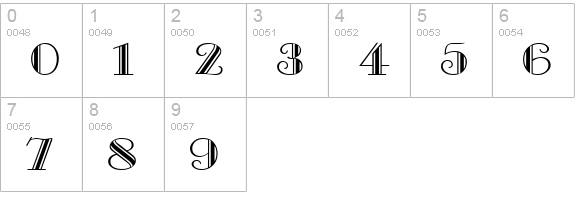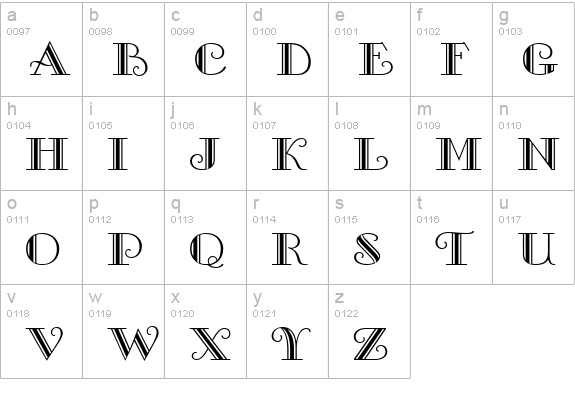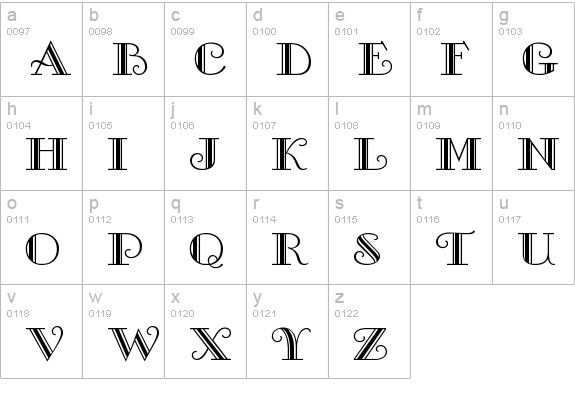
Gallia Regular is the standard, neutral variant in the Gallia typeface family \xE2\x80\x94 well suited to general body text, paragraphs, and standard typographic work.
Gallia Regular font is a versatile and elegant typeface that exudes timeless beauty. Its sleek lines and balanced proportions make it perfect for a wide range of design projects, including branding, advertising, and editorial layouts. With its clean and legible letterforms, Gallia Regular adds a touch of sophistication and professionalism to any text. This font features a harmonious blend of classic and contemporary elements, making it suitable for both traditional and modern design aesthetics. Its graceful curves and refined details give it a unique charm that captures attention without overpowering the content. One of the best things about Gallia Regular font is that it is completely free. As a designer, you can freely download this font at FontsMarket.com, saving you time and money. This means you can use Gallia Regular in your projects without worrying about any licensing restrictions or additional costs. Whether you're working on a logo, a website, or a print layout, Gallia Regular font will elevate your design to new heights. Its versatility and timeless appeal make it a valuable addition to any designer's toolkit. So why wait? Visit FontsMarket.com today and download Gallia Regular font for free to enhance your next design project.